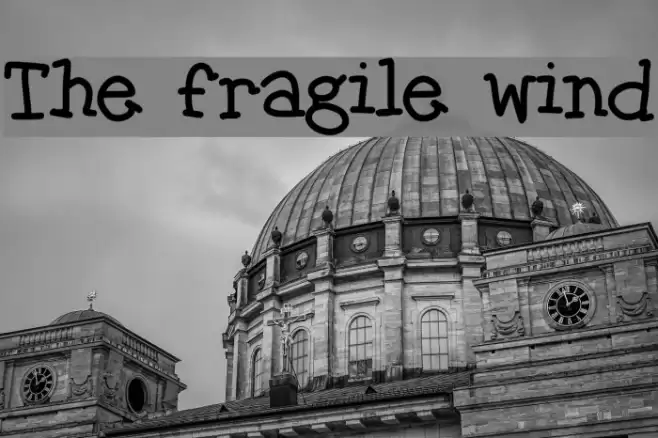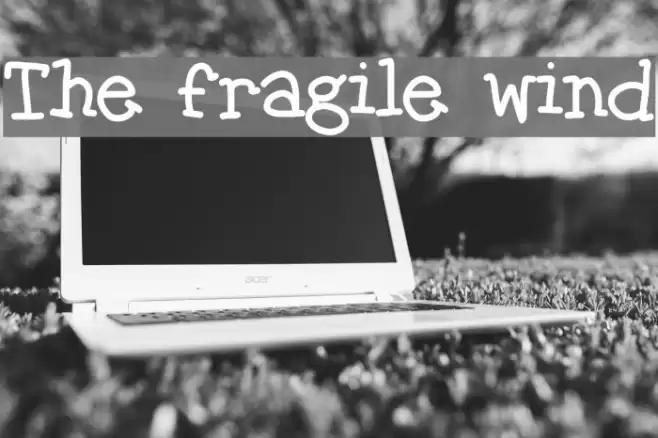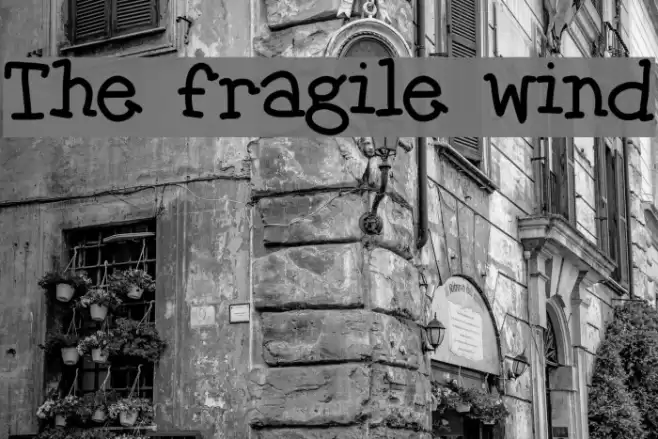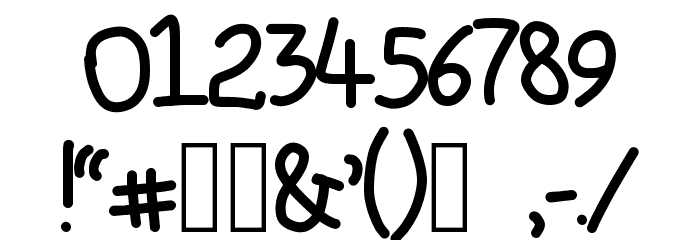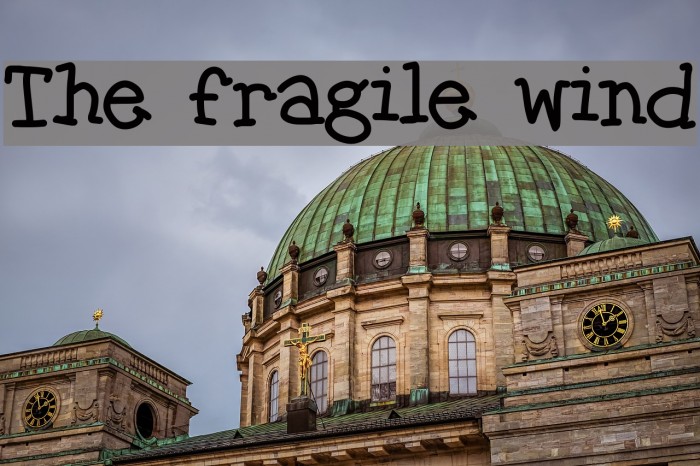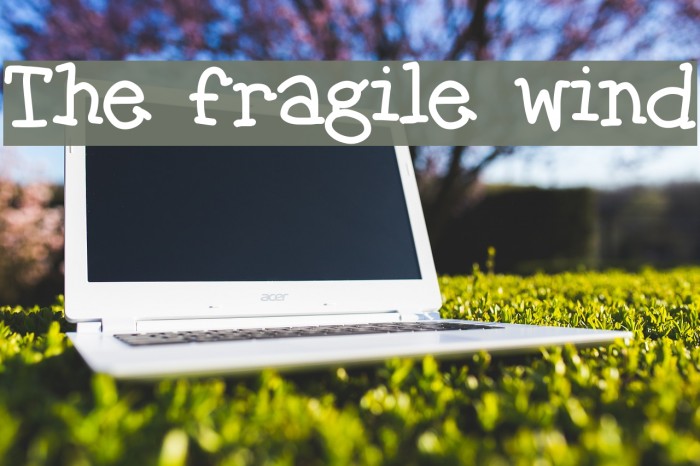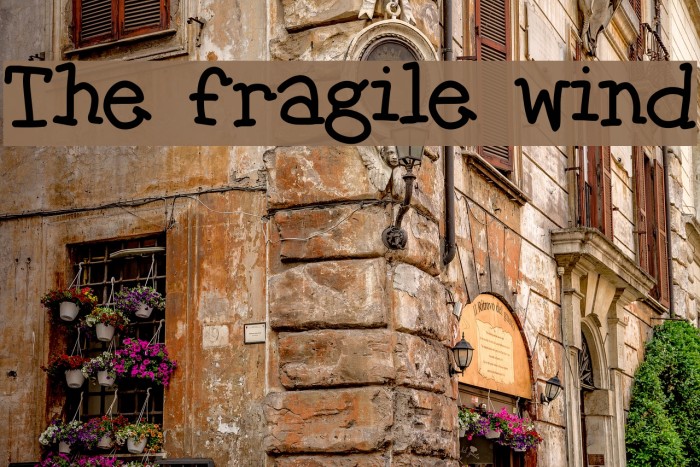
The fragile wind Font
The fragile wind Description
This font features a playful and whimsical style with a handwritten appearance. The characters are slightly irregular, giving it a casual and friendly feel. The strokes are moderately thick, and the letters have a rounded, soft quality. The uppercase and lowercase letters are well-balanced, maintaining a consistent flow throughout. The numerals and special characters complement the overall style, making it suitable for informal and creative projects. The font's unique charm lies in its ability to convey a sense of warmth and approachability.
A playful, handwritten font with a whimsical and casual style from Uncategorized fonts.
- Proposed Projects: Ideal for children's books, greeting cards, playful branding, and creative invitations.
- Use Case: Headlines, Logos, Invitations